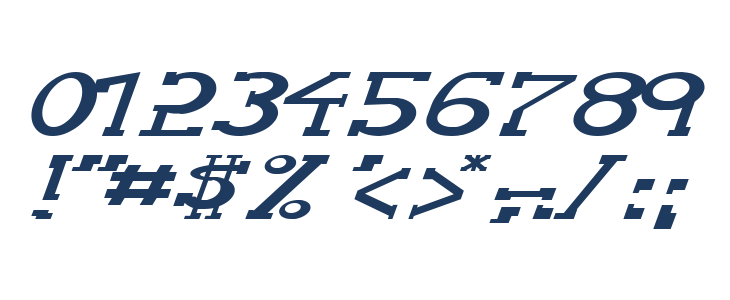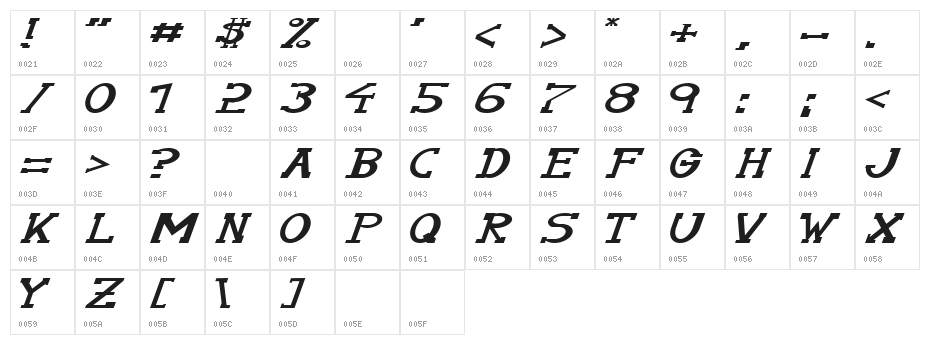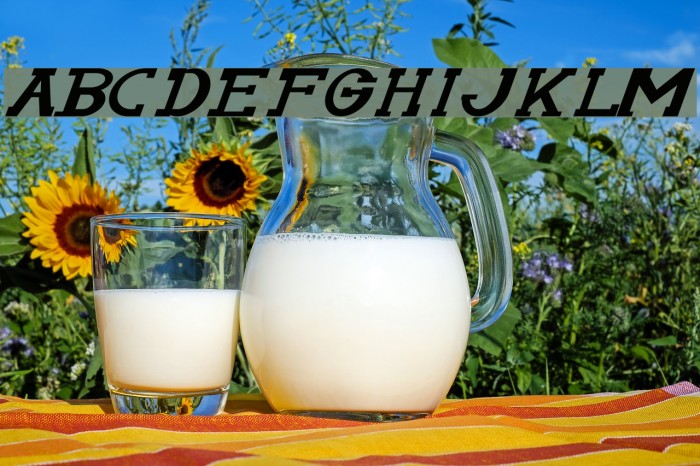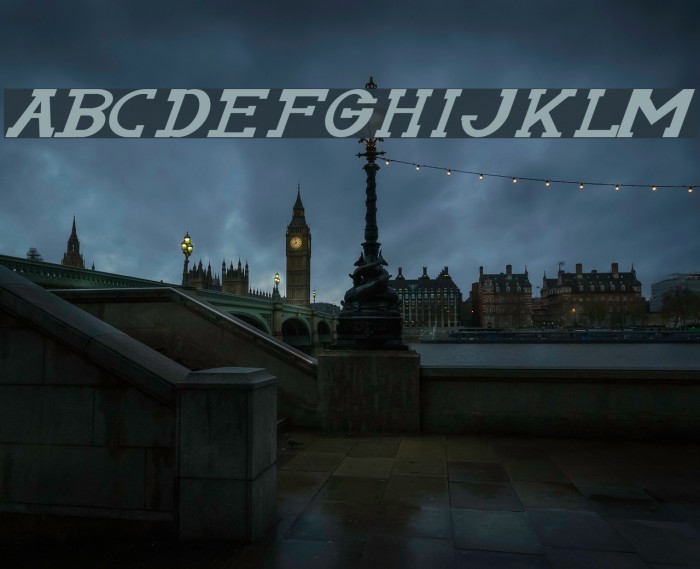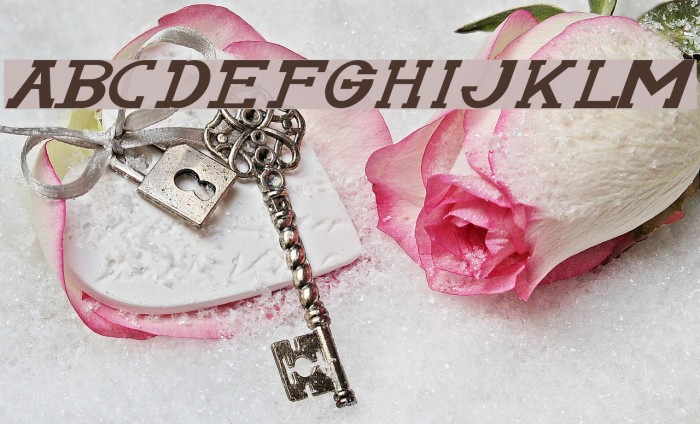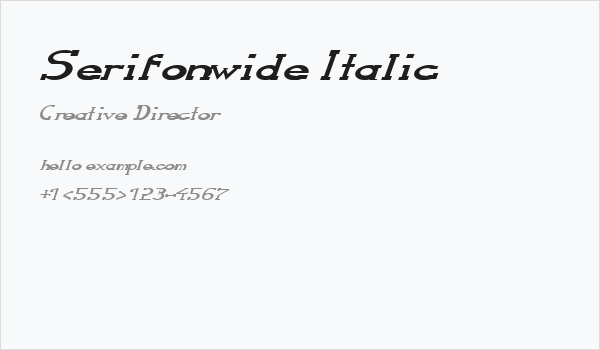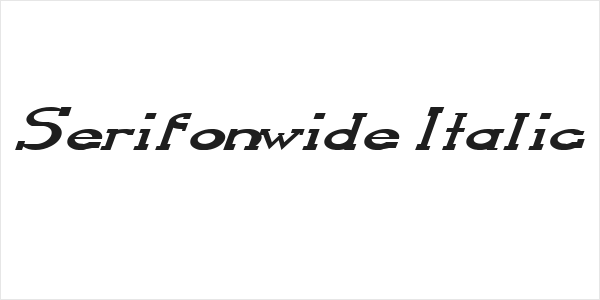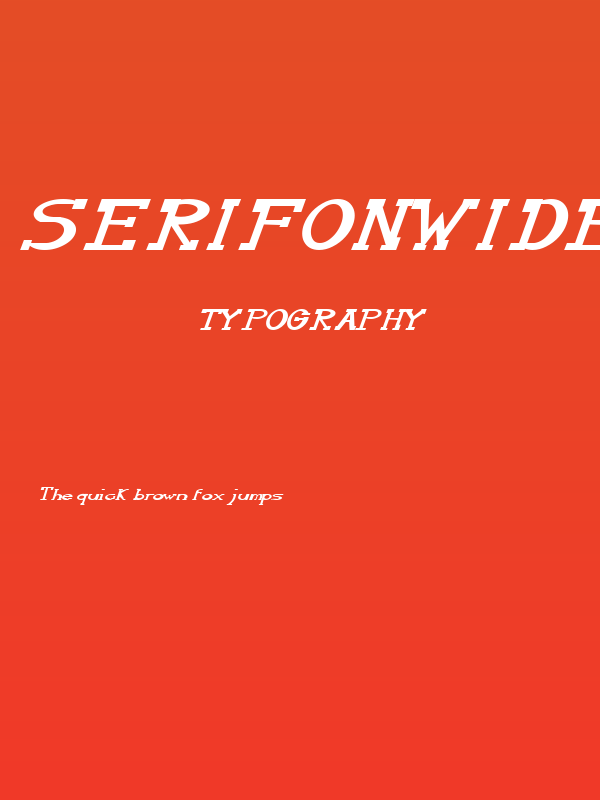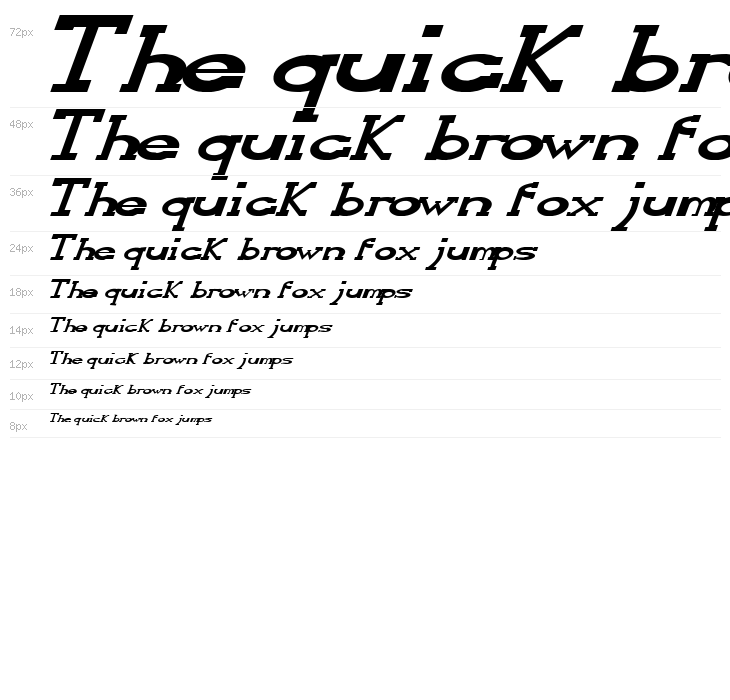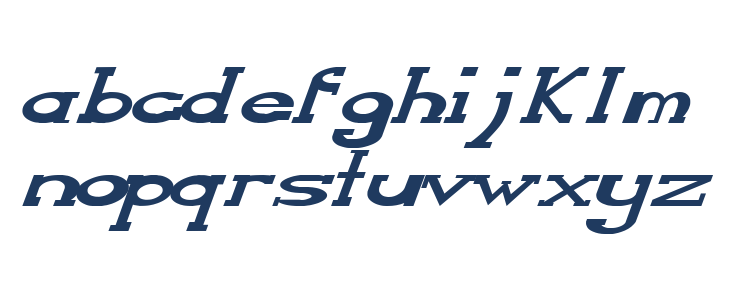
Serifonwide Italic Font
Serifonwide Italic Description
This font features a bold and dynamic style with a strong italic slant, giving it a sense of movement and energy. The characters are designed with a serif structure, adding a touch of classic elegance while maintaining a modern edge. The strokes are thick and consistent, providing a robust and impactful appearance. The spacing between characters is relatively tight, enhancing the compact and cohesive look of the text. This font is well-suited for making a statement, with its high contrast and distinctive style.
| Proposed Projects | Ideal for branding, headlines, posters, and any design that requires a bold and impactful typeface. |